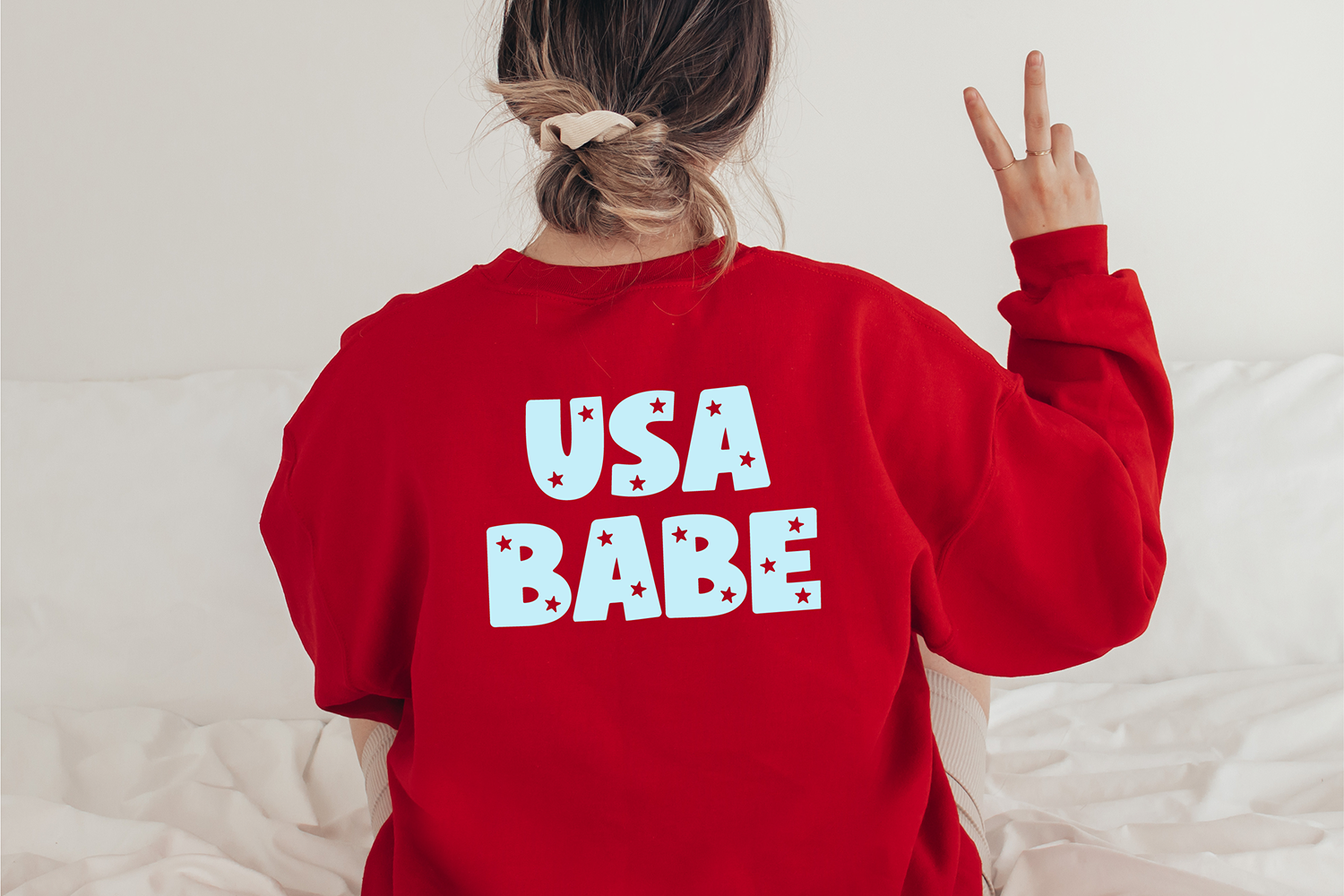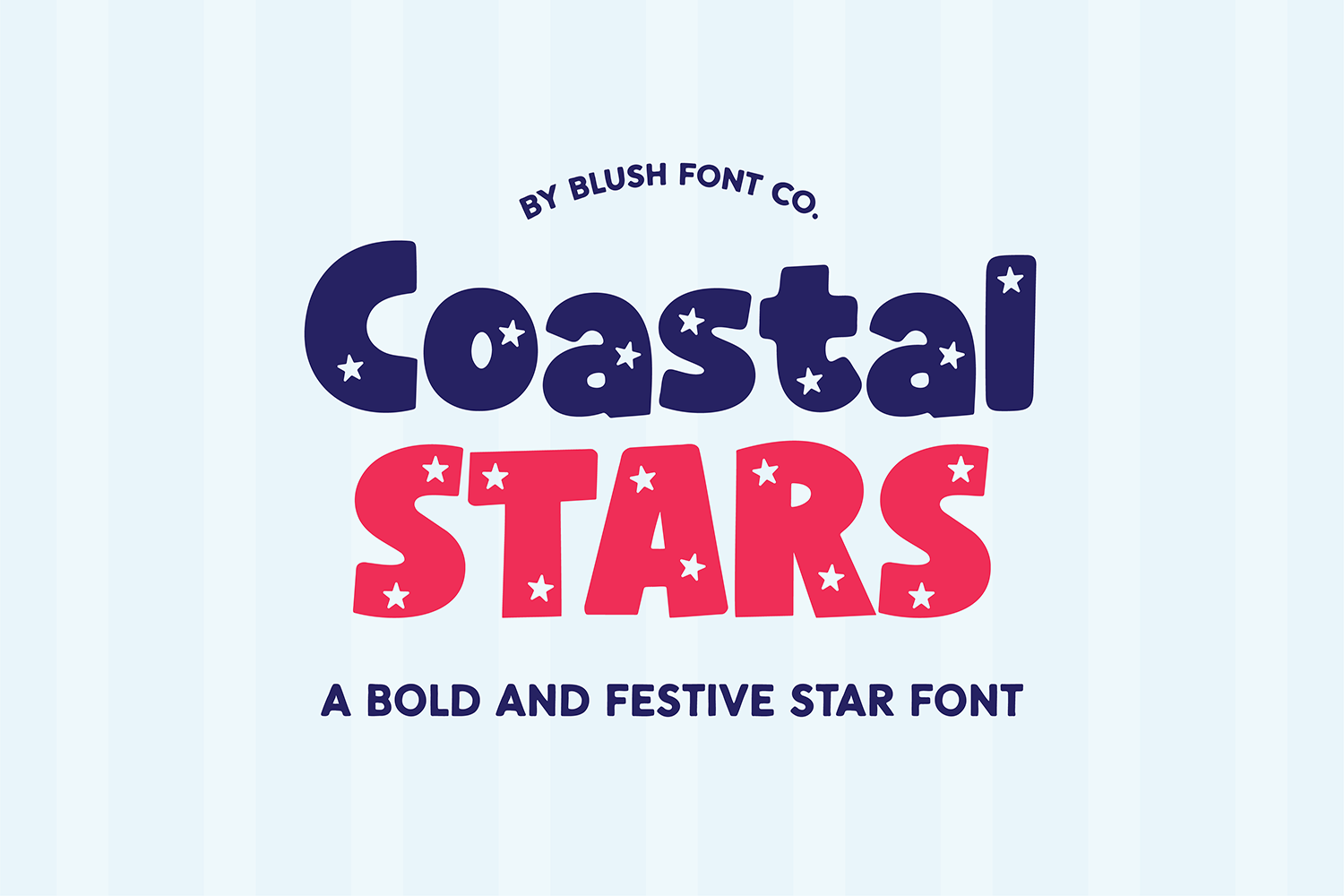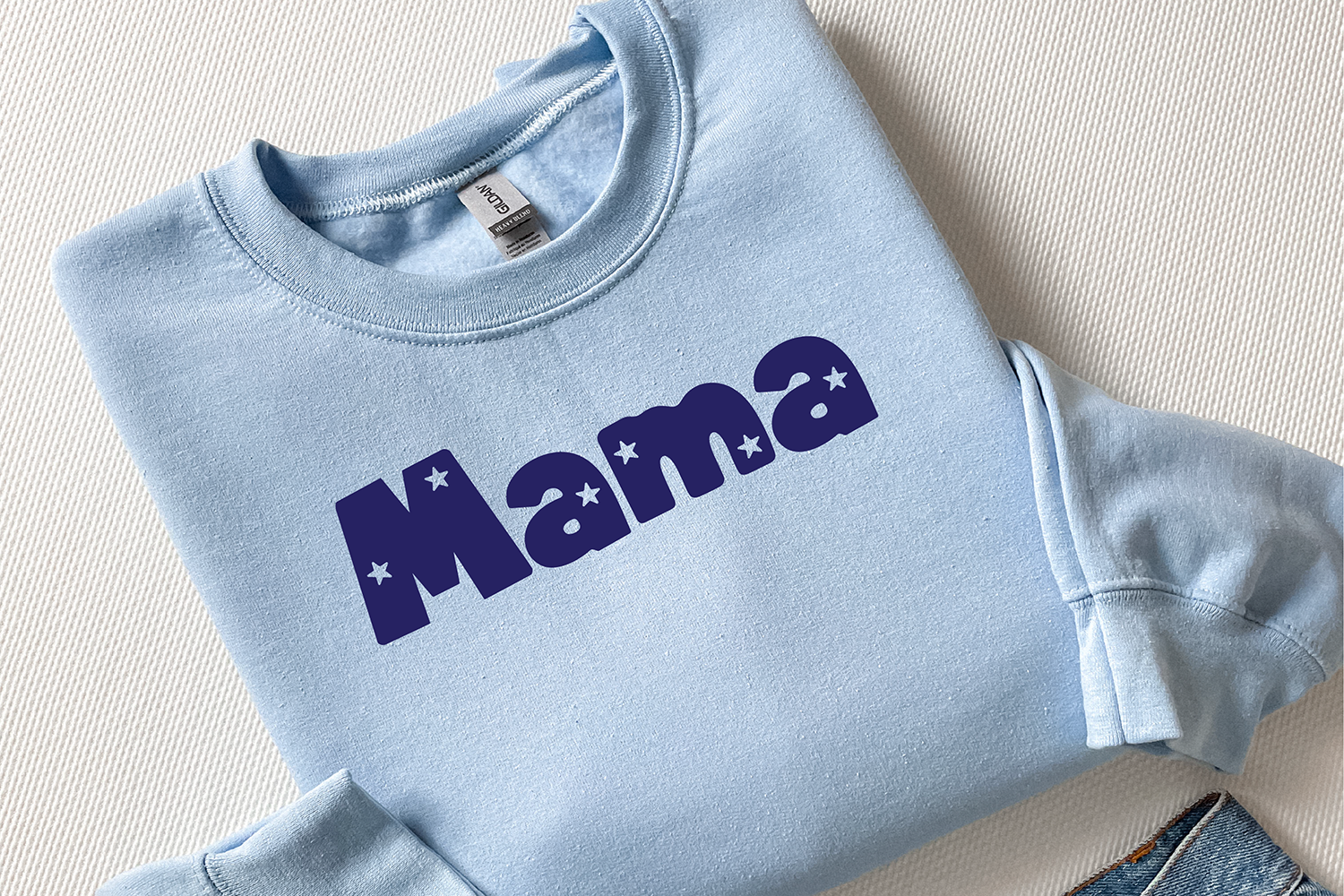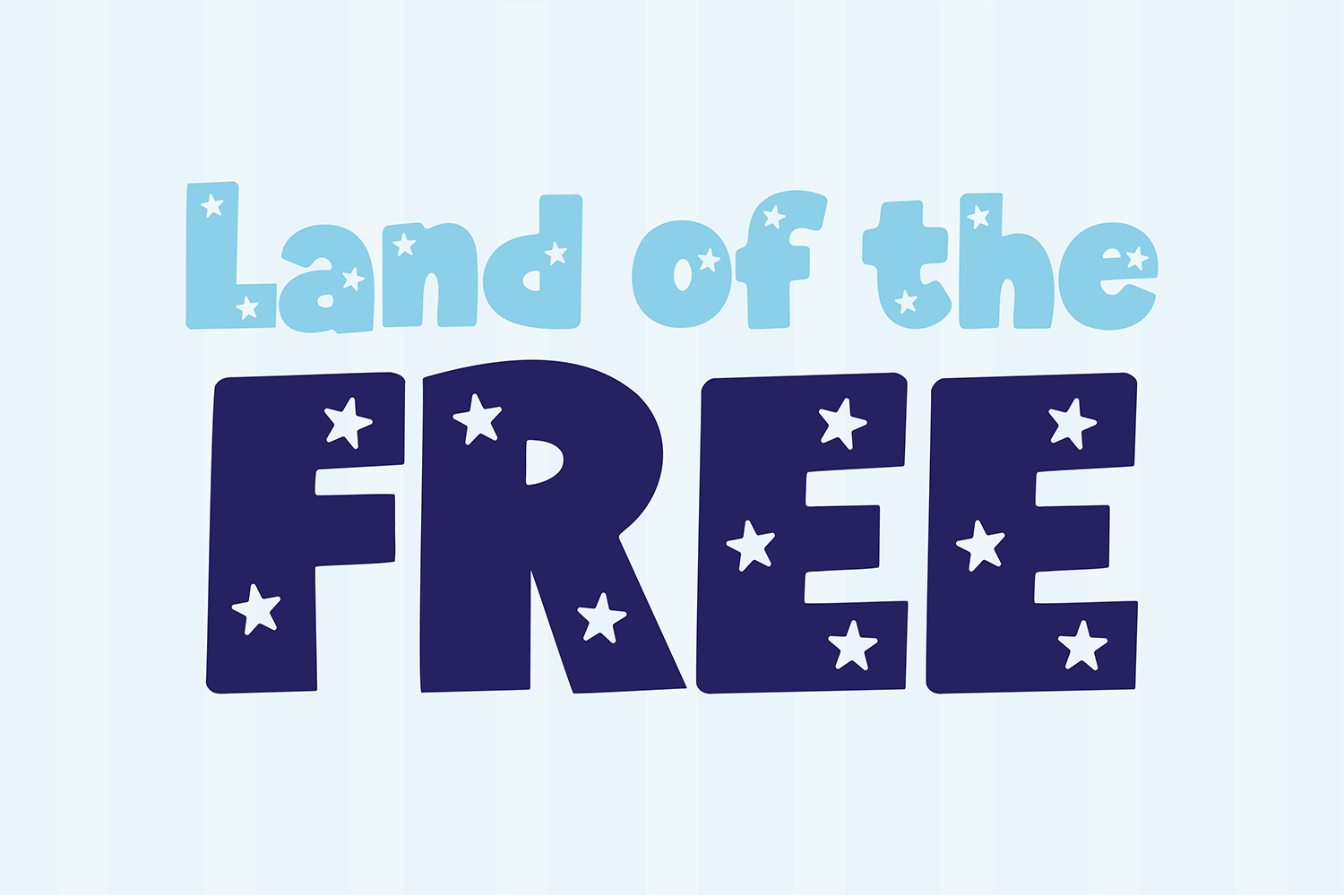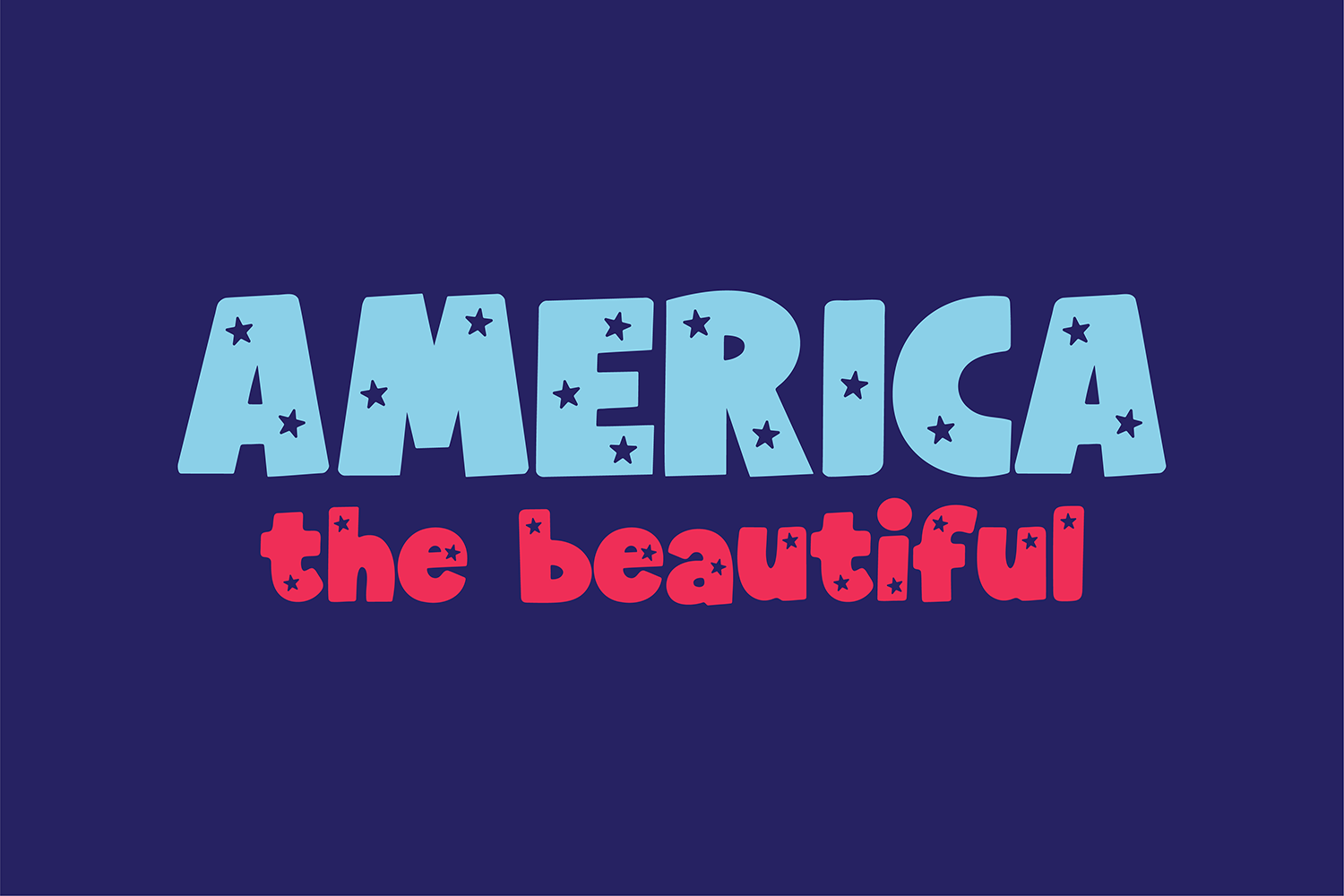
"Coastal Stars" bold star font.
This font is a bold block display font with stars. It is perfect for social media or crafty projects for the 4th of July or birthdays. Use it for branding, crafts for decor, invitations, and more! This font includes upper and lowercase glyphs, numbers, and basic punctuation marks.